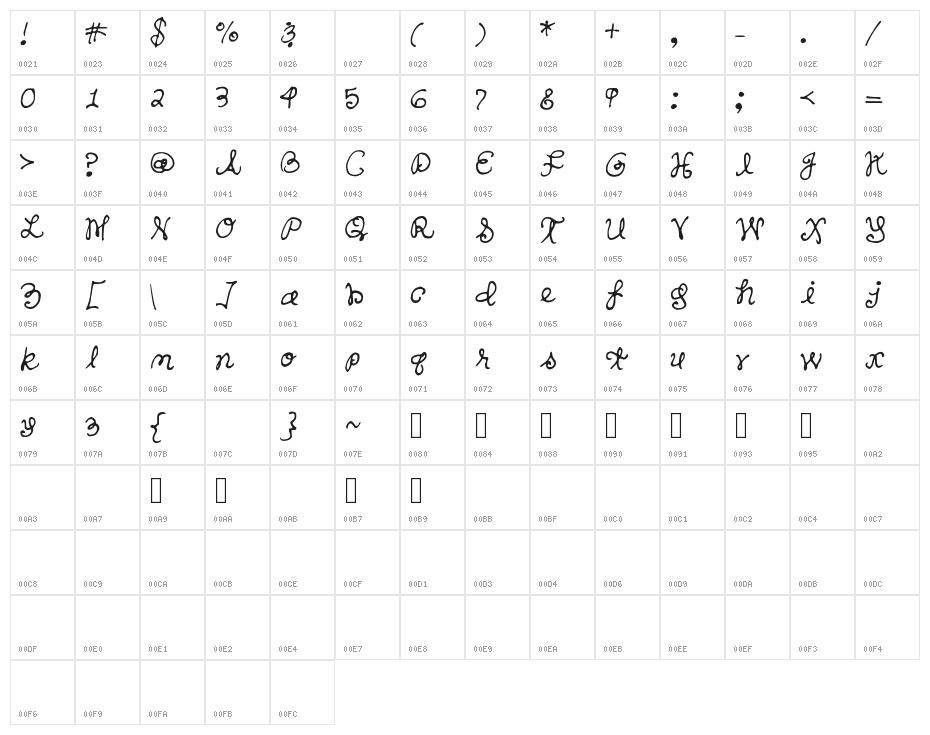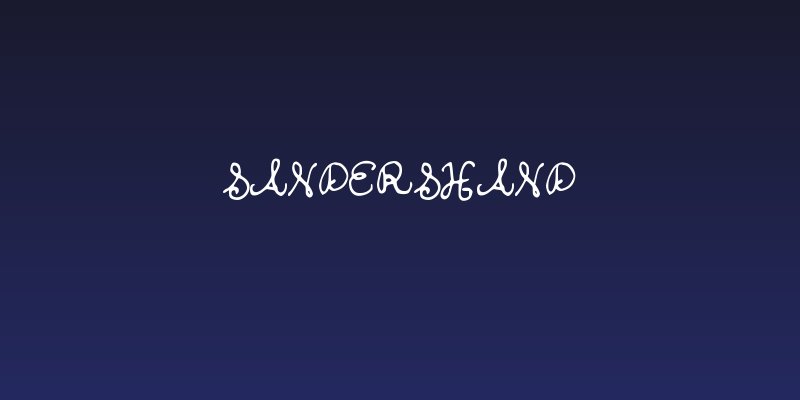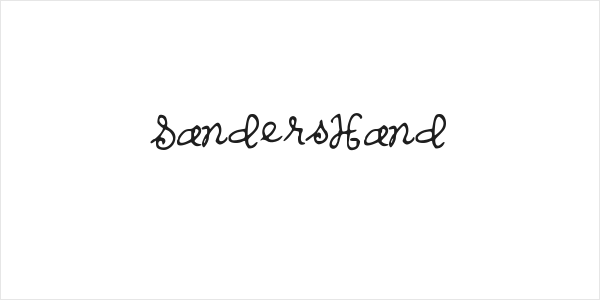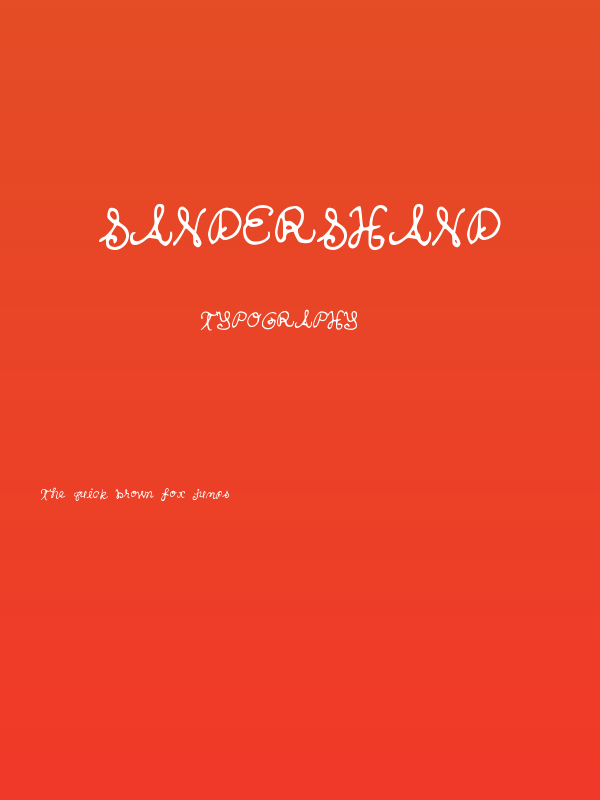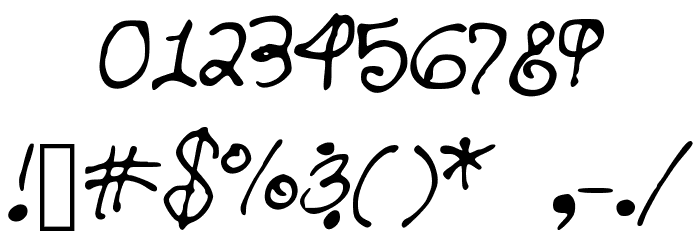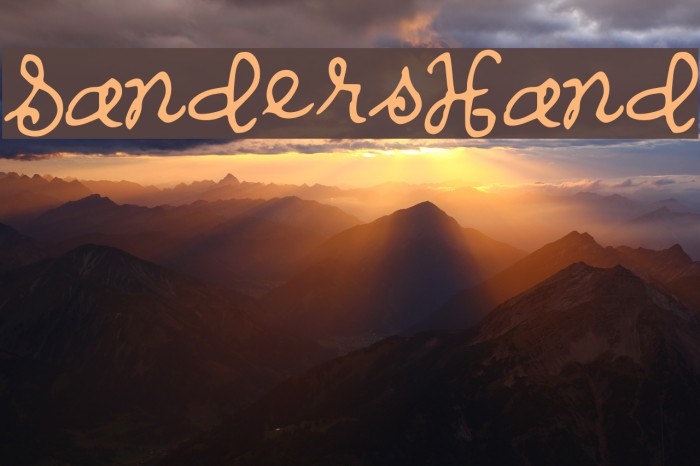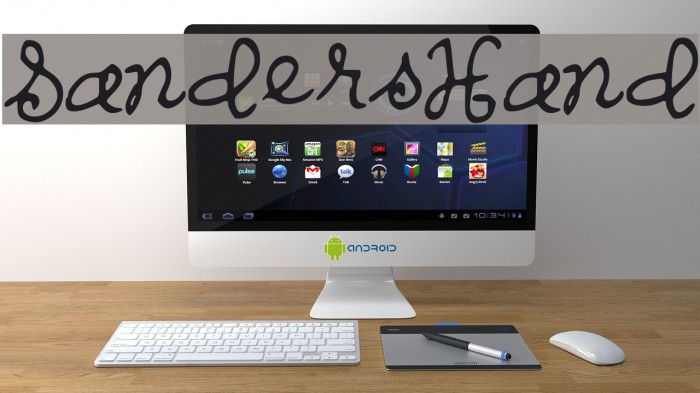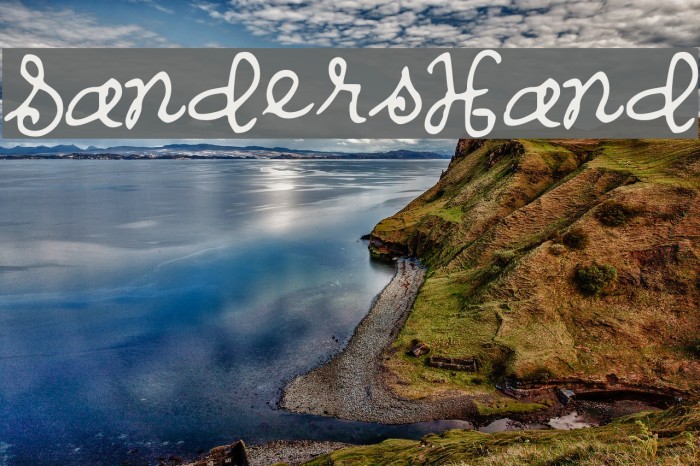
SandersHand Font
SandersHand Description
This font features a playful and whimsical script style, characterized by its fluid and interconnected letterforms. The strokes are smooth and rounded, giving it a friendly and approachable appearance. The uppercase letters maintain a consistent height, while the lowercase letters exhibit a slight slant, enhancing the handwritten feel. The numerals and special characters are designed to match the overall aesthetic, ensuring a cohesive look across all text. This font's unique charm makes it suitable for creative and informal applications.
SANDERSHAND UPPERCASE
SANDERSHAND LOWERCASE
SANDERSHAND OTHER CHARS
| Proposed Projects | Ideal for greeting cards, invitations, personal branding, and creative projects that require a touch of whimsy. |